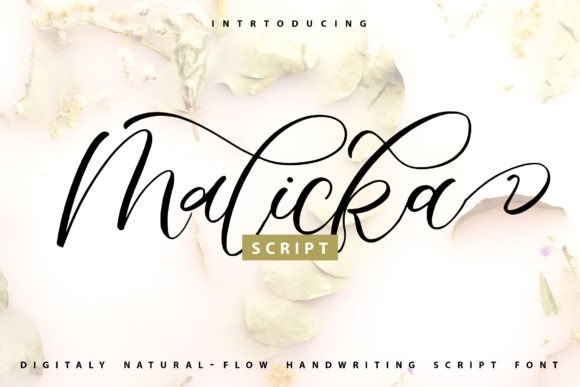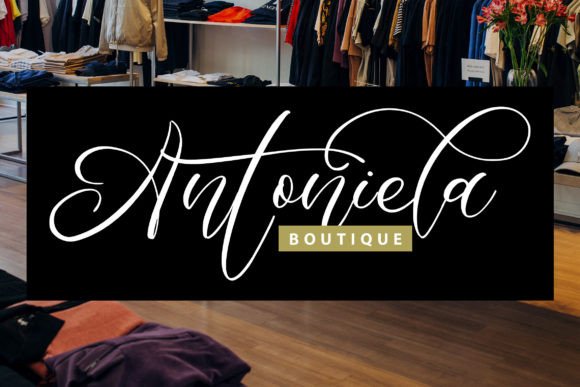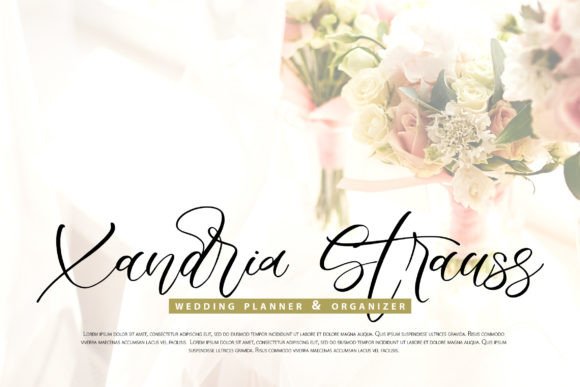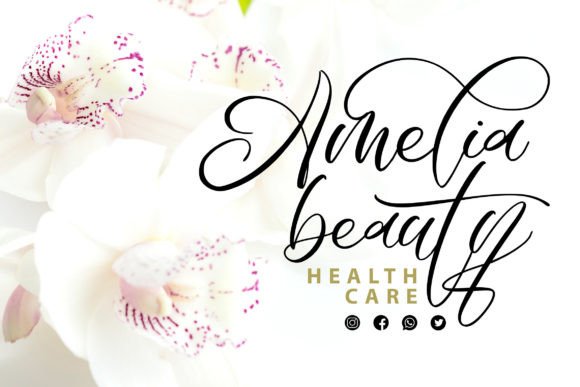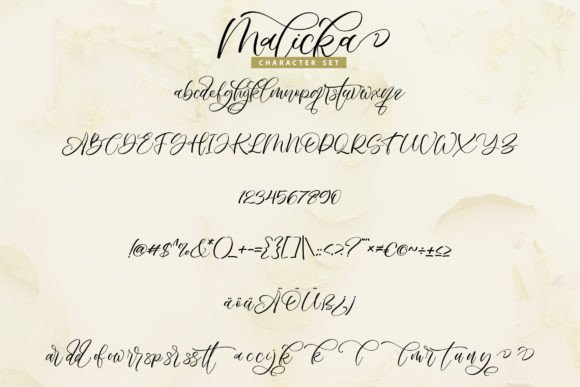
Malicka Font
About Malicka Font
“Malicka” is a captivating calligraphy typeface that exudes romance and sweetness, featuring characters that gracefully dance along the baseline. This font strikes a harmonious balance between a casual and elegant touch, making it a versatile choice for a wide range of design projects.
With its distinctive charm, “Malicka” adds a touch of sophistication to your work while maintaining an approachable and friendly demeanor. Whether you’re creating wedding invitations, branding materials, or any other creative endeavor, this font’s unique character ensures that your designs stand out and evoke a sense of elegance.
The beauty of “Malicka” lies in its ability to convey emotions and capture attention. Its flowing script and delicate details create a warm and inviting atmosphere, making it the perfect choice for projects that require a romantic or whimsical touch. The characters seem to come to life as they follow the graceful rhythm of the baseline, lending your work a sense of movement and grace.
“Malicka” invites you to explore the boundless possibilities of creativity, using its distinctive style to convey your message with charm and elegance. Let this font be your trusted companion in design, infusing your projects with the sweet and romantic essence that it embodies. Watch as “Malicka” adds a touch of magic to your work, ensuring that it resonates with your audience and leaves a lasting impression.